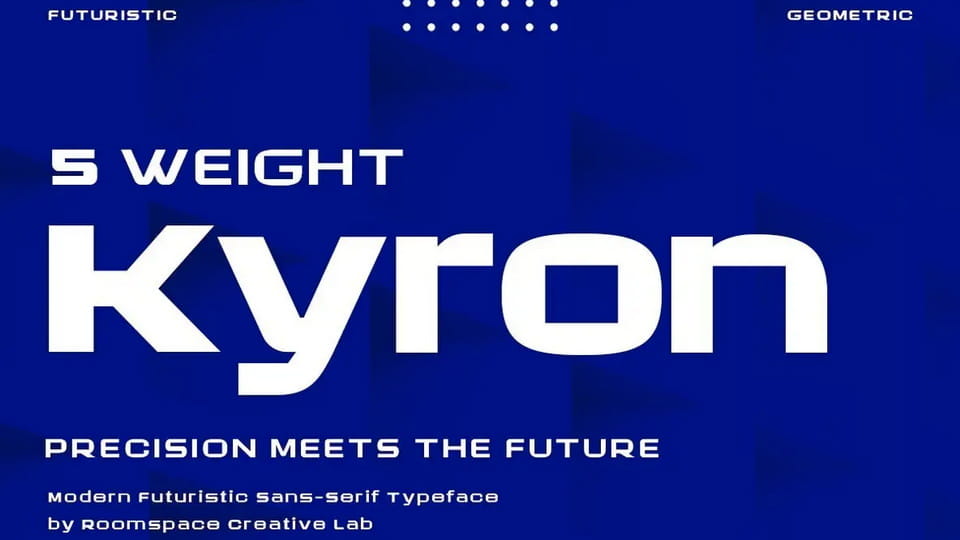
Download Kyron font, a new sans serif typeface designed to bring a modern, professional edge to any project. With 5 distinct weights, this font offers the flexibility and versatility that designers and business professionals need.